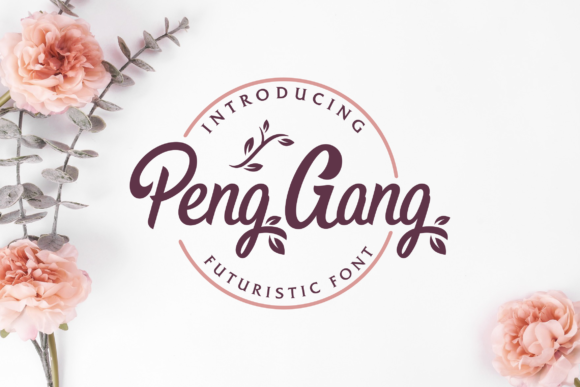
About Peng Gang Font
Peng Gang is a bold and authentic script font. The font is suitable for any branding project like logos, t-shirt printing, sports, and many more. It looks outstanding in a wide range of contexts.